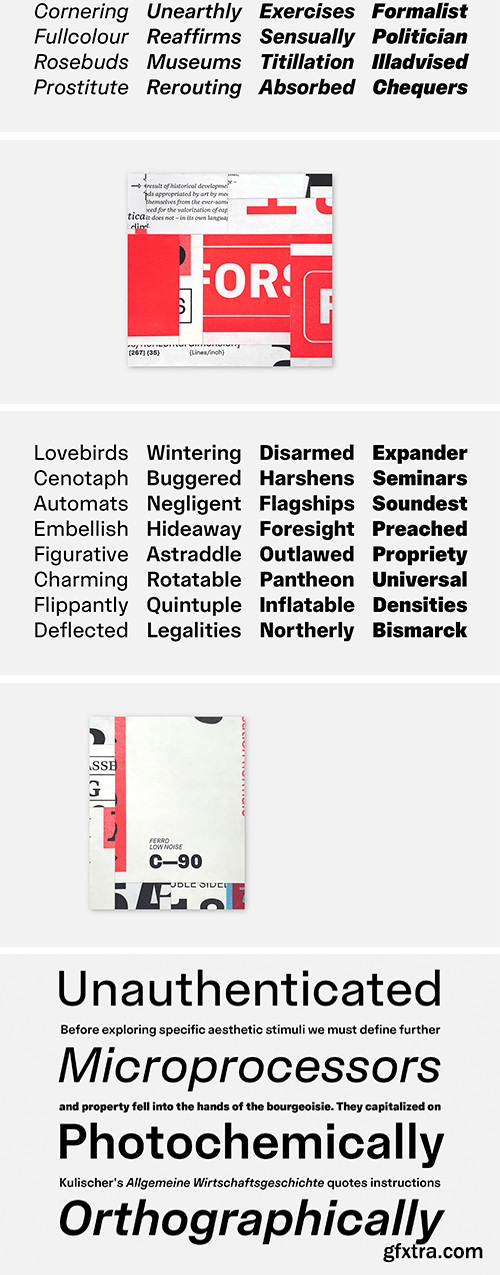
Fabric Sans Font Family
Fabric Sans is an unassuming straight-sided grotesque. The design is guided by the interplay of apertures and letterspacing – a low-contrast typeface with high-contrast whitespace, hiding a radiant texture in plain sight. Fabric Sans is at once familiar and novel. Pitted against aggressive counters, the classic letterforms are charged with vibrant animation.